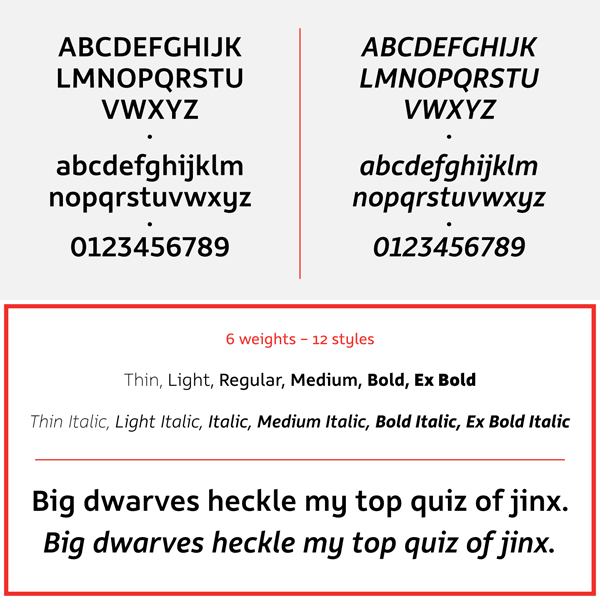
Rehn Font Family.
Rehn is a purebred sans serif font by type foundry Moretype. This modern font family comes with 6 weights (ranging from Thin to Extra Bold) and corresponding italics. As it should be for a professional typeface, Rehn includes numerous typographic features such as small caps, ligatures, automatic fractions, proportional/tabular lining and old style figures, numerators, denominators, superiors and inferiors, case sensitive forms and alternative glyphs. Rehn is equipped for highest typographic needs. You can use it for bold headlines as well as long and small texts. The Rehn type family is available as both Webfont and Desktop font.